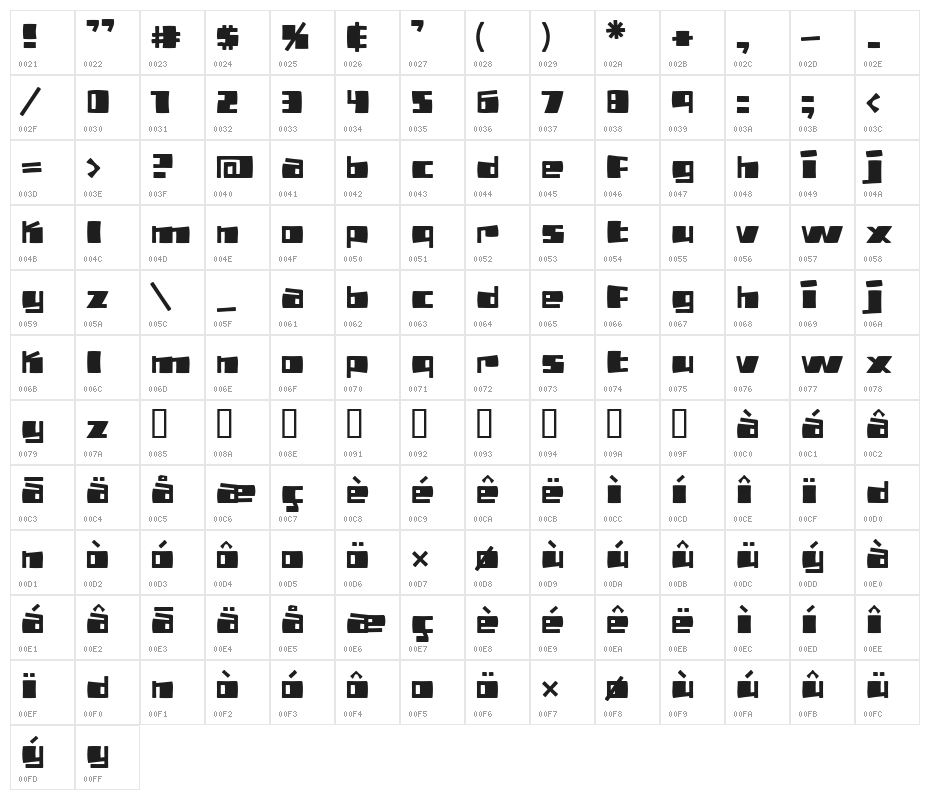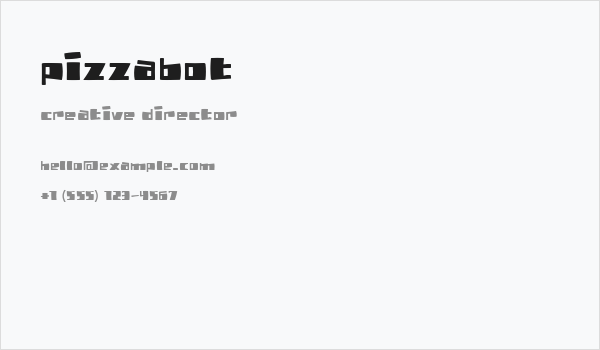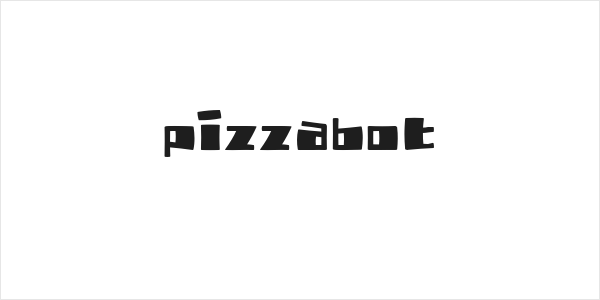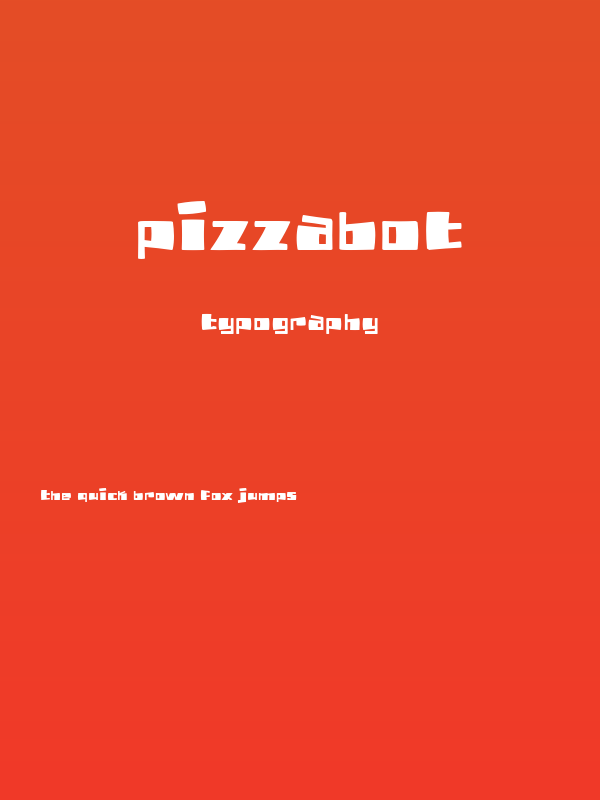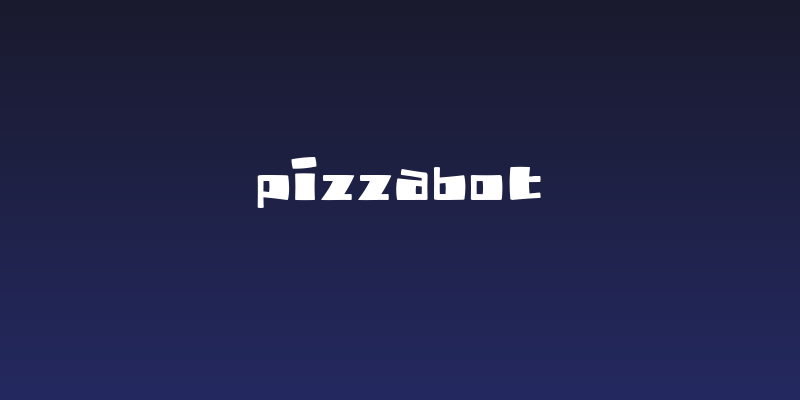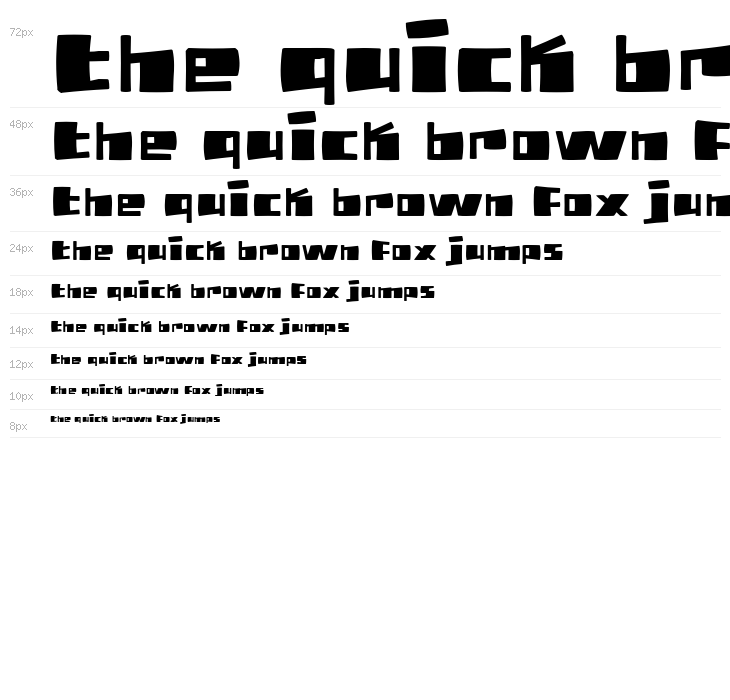
PizzaBot Font
This font features a playful and bold design with a distinctly irregular and chunky appearance. The characters are slightly tilted and vary in width, giving them a dynamic and energetic feel. The uppercase and lowercase letters maintain a consistent style, with exaggerated curves and angles that create a sense of movement. The numbers and special characters follow the same whimsical design, making them stand out with their unique forms. This font is ideal for projects that require a fun and informal touch, such as children's books, comic strips, or playful branding. Its boldness ensures high visibility, making it suitable for headlines and attention-grabbing text.
| Overall Style | Playful, Energetic |
| Use Case | Headlines, Logos, Display text |
| Proposed Projects | Children's books, comic strips, playful branding, headlines. |